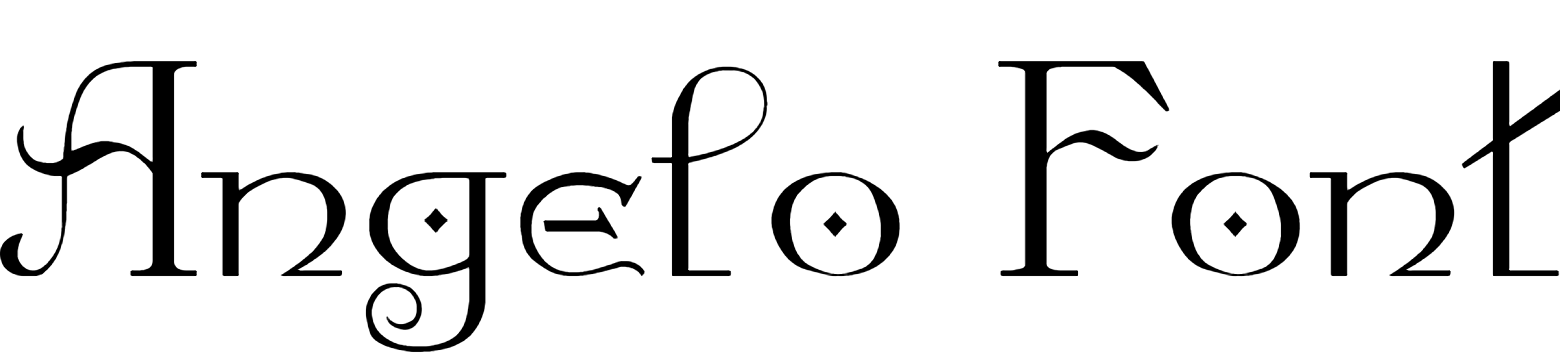
Angelo Font Preview
Angelo
Angelo is a fancy font (1993). It's a decorative display font with plenty of personality, made to grab attention. It's a free download, and you can try it with your own text in the preview above first.
- Year: 1993 (from the copyright line in the font)
- Weight: Thin (100)
- Glyphs: 211
What You Can Type With Angelo
You get every letter from A to Z in both cases and all the numbers from 0 to 9, which means Angelo can handle full sentences, dates and prices. Everyday marks like &, !, ? and @ are there too. Thanks to its accented letters, it also works for Spanish, French, German, Portuguese and Italian, not just English.
Where Angelo Works Best
Angelo is a natural fit for posters, logos and eye-catching headlines. Its thin strokes look elegant large but can fade at small sizes or on busy backgrounds, so give it room and contrast. The file has no kerning data, so in logos and big titles check pairs like AV, To and Wa and tighten the spacing by hand. Use it for one standout word or headline and let simpler fonts handle the rest.
Does Angelo support accented letters?
Yes. Angelo includes the accented letters needed for Spanish, French, German, Portuguese and Italian, so it works for more than just English.